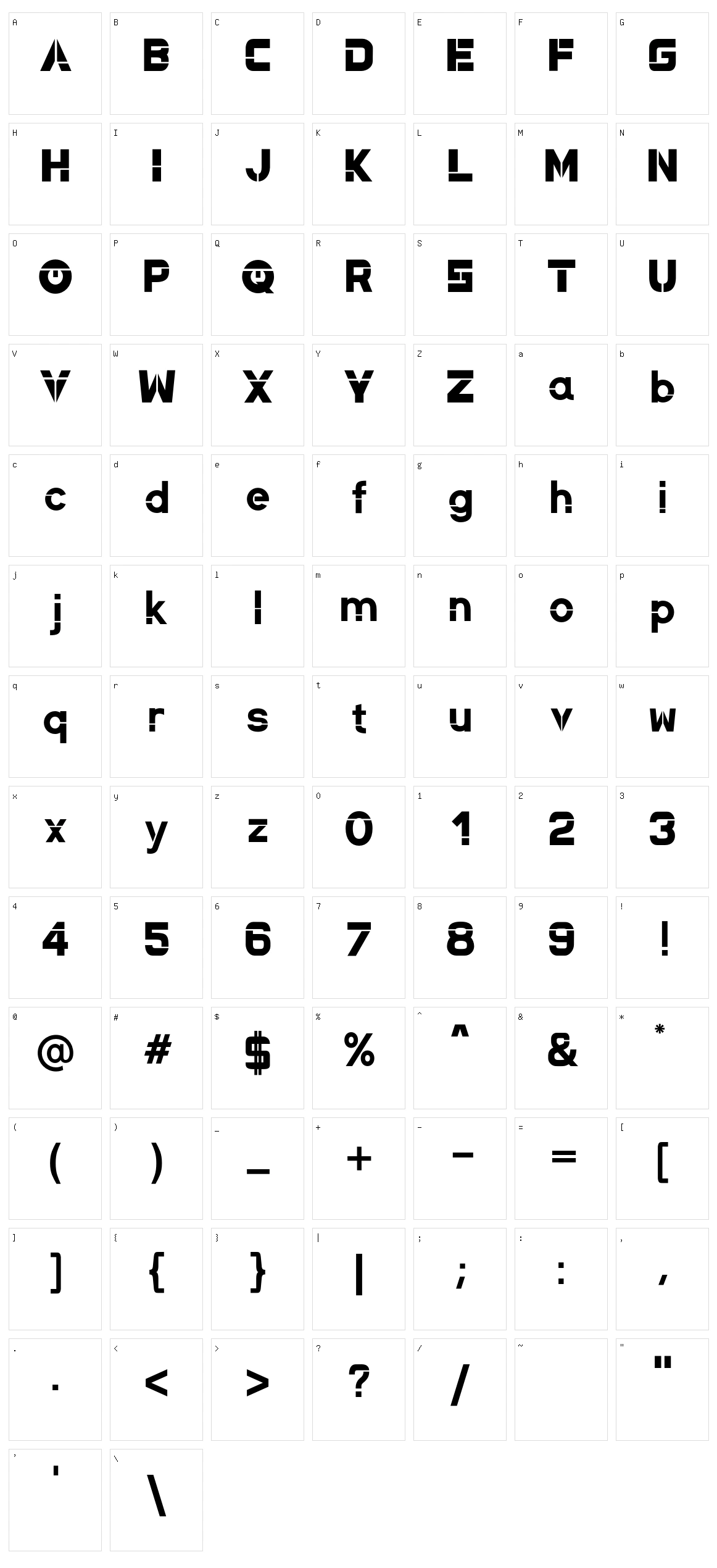
The free font New Magnetic is carefully designed by Wojtek Zolty, showcasing a thoughtful balance of creativity and usability and falls under the Stencil font style. When you download the ZIP file, it contains only 23.6 KB of font files, making it lightweight and quick to download. Please review the license details below to understand permitted usage and distribution rights. If license information is not available, we recommend using this font for personal projects only or contacting the author directly for commercial usage permissions.